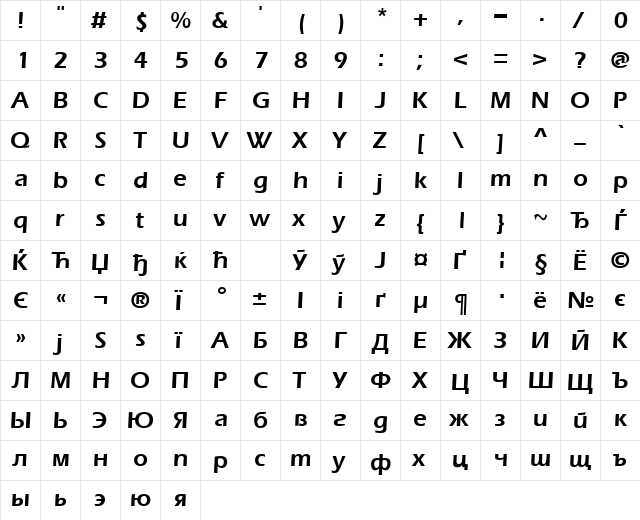
EverestDemi Normal
Design Context for EverestDemi Typeface
EverestDemi is a composed and adaptable typeface that performs quietly and consistently across a wide range of design contexts.